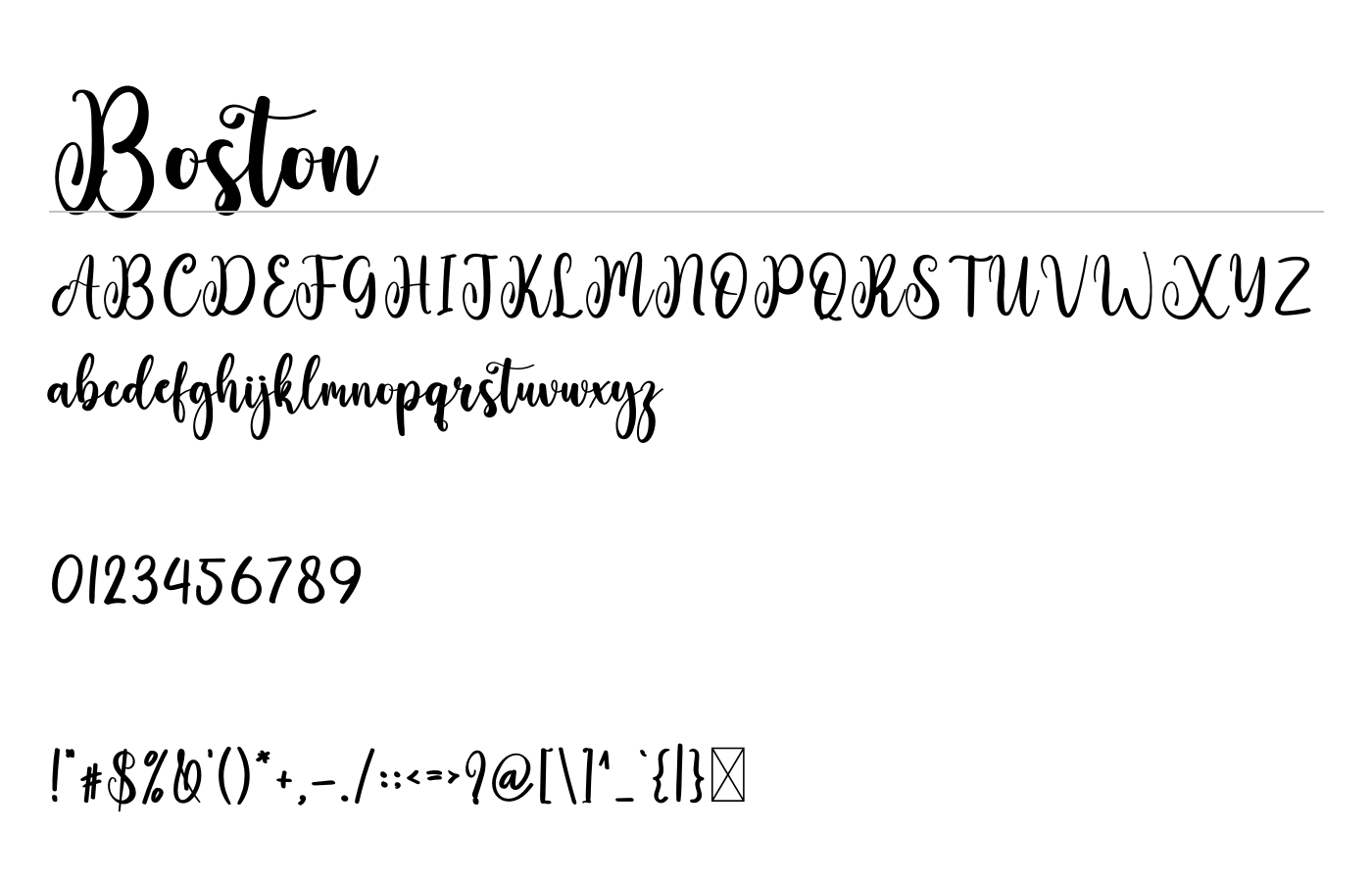
Boston is a playful and elegant script font with a lively, hand-lettered feel. It features smooth, flowing strokes with distinctive curls and swashes that add charm and personality, making it ideal for branding, invitations, and creative projects looking to convey warmth and friendliness. Its balanced uppercase and lowercase characters, along with well-crafted numerals, ensure versatility while maintaining a stylish, artistic flair.
Boston Font